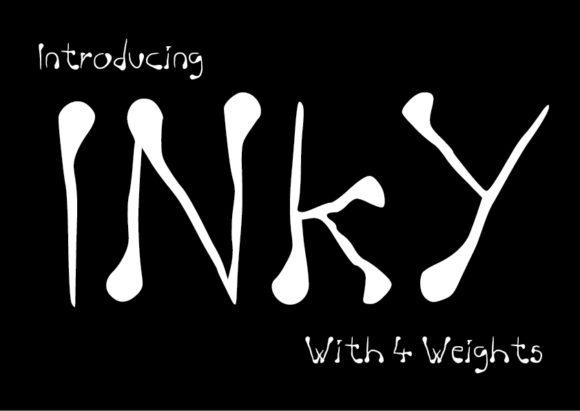
Introducing Inky Font, a creation of GraphicsBam Fonts, a maestro in the art of digital calligraphy. Inspired by the gentle stroke of a fountain pen, Inky is a script font of unmatched charm and authenticity. Its deliberate and measured flow, with moments of pause that mimic the ink sinking into paper, infuses every letter with character and emotion.
Inky's slightly unstable, beautifully messy style is not just a visual treat; it's a gateway to a bygone era of handwritten communication. Dive into a world where words are not just characters on a screen, but tangible expressions of your thoughts and feelings. Use Inky for handwritten displays, note-making, or any project where a touch of the personal is desired.
Embrace the artistry of Inky and let your creations stand out with a unique, hand-crafted charm. It's the perfect choice for those seeking to connect with their audience on a deeper level, to leave a lasting impression that lingers long after the words are read.
Inky's repertoire includes a full set of upper and lower alphabet, along with numbers, symbols, and punctuation. Unleash your creativity and explore endless possibilities, from captivating horror novels to whimsical invitations, from personal journals to heartfelt love letters.
With Inky, the written word becomes an art form, a reflection of your individuality. Its carefully crafted imperfections, its captivating flow, will add a touch of magic to your digital creations, ensuring they resonate with your audience in ways that ordinary fonts simply cannot.